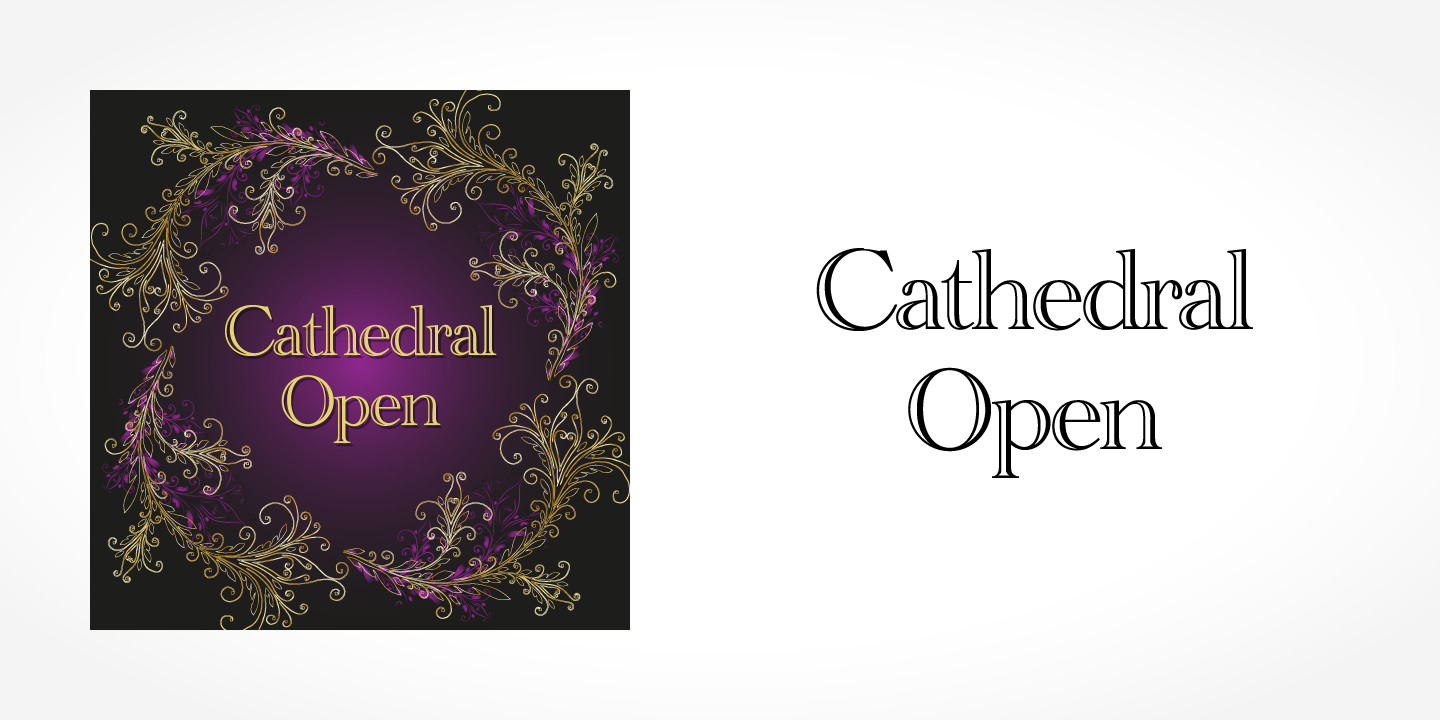
Cathedral Open Font is perfect for sacred religious branding, spiritual ceremony invitations, Gothic revival architecture signage, medieval-themed event materials, monastery publication designs, ecclesiastical marketing campaigns, heritage church communications, divine worship program layouts, holy pilgrimage promotional graphics, and reverent institutional identities. Its sacred character makes it ideal for projects requiring divine majesty and architectural grandeur that celebrates spiritual heritage and religious tradition.
What makes Cathedral Open Font exciting is its magnificent ability to channel the soaring spiritual architecture and divine majesty of Gothic cathedrals through letterforms that embody sacred geometry and heavenly aspiration. The font features towering vertical elements with cathedral-inspired proportions that evoke the uplifting experience of standing beneath vaulted ceilings while maintaining excellent readability for sacred communications. Its cathedral character transforms ordinary text into expressions of divine reverence that inspire contemplation and celebrate the eternal beauty of sacred architecture.
The Cathedral Open Font family includes Regular, Bold, Light, Gothic, Sacred, Divine, and Reverent variations. Each style preserves the font's cathedral essence while offering different levels of architectural grandeur and spiritual weight for creating authentic sacred graphics. The comprehensive character set includes religious symbols, Gothic ornaments, sacred decorations, and divine glyphs essential for genuine ecclesiastical and spiritual typography projects.
Religious institutions and spiritual brands consistently choose Cathedral Open Font Free Download for projects demanding authentic cathedral typography solutions. The font's sacred character instantly establishes divine credibility while ensuring clear communication across spiritual marketing channels. Its versatility spans from subtle sacred touches to bold statements that celebrate the transformative power of divine architecture and the eternal significance of sacred spaces in human spiritual experience.
Whether you're developing religious brand identities, creating spiritual marketing materials, or designing sacred communications, Cathedral Open Font provides the perfect combination of divine authenticity and contemporary functionality. The font's sacredly crafted letterforms ensure genuine cathedral character while maintaining excellent performance across various religious applications and spiritual business communications.
The sacred heritage of Cathedral Open Font makes it exceptional for creating reverent connections with audiences who appreciate spiritual architecture and divine tradition. Its cathedral precision and sacred appeal work seamlessly across traditional religious materials and modern digital spiritual platforms. The font performs majestically in both large-scale sacred displays and intimate divine communications.
Ascend to divine heights with Cathedral Open Font and discover how authentic sacred typography can enhance your spiritual projects with genuine cathedral appeal and divine sophistication. This remarkable typeface combines Gothic tradition with contemporary functionality, making it indispensable for religious organizations celebrating the eternal beauty of sacred architecture and the transformative power of divine spaces.